Y2K Font Generator: Copy-and-Paste Retro Vibes for Free
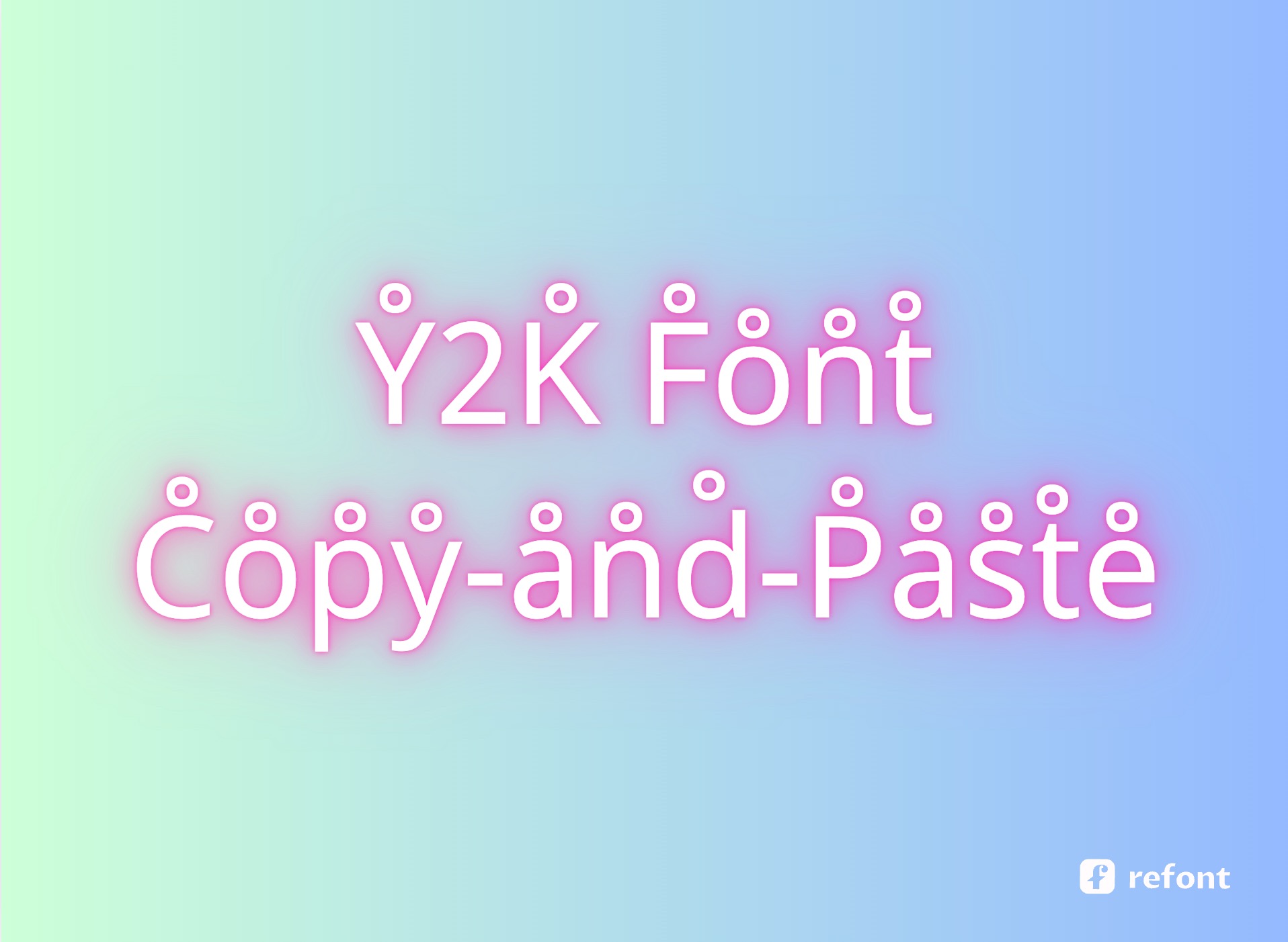
Why the Y2K Font Craze Is Back
The late 1990s promised flying cars, silver jumpsuits, and websites that said “Welcome to the Future!”—all set in bubble letters dripping with chrome gradients. Two decades later, the aesthetic is back, and a good y2k font generatormakes it effortless to recreate that optimism. Gen-Z embraces lo-fi GIFs, Tamagotchi palettes, and hyper-saturated type because it feels freshly nostalgic. And marketers? They love a trend that converts.
Y2K Font Basics
Origins of the Y2K Look
- Techno-optimism: Dot-com IPOs and spaceship interfaces inspired rounded corners and futuristic curves.
- Rave culture: Candy-colored flyers, metallic foils, and bubbly outlines dominated club posters.
- Early GUI design: Mac OS 9 and Windows XP icons featured thick highlights, drop shadows, and glossy bevels.
Key Traits of Y2K Typography
| Trait | Description | Example Uses |
| Bubble & Blobs | Pillow-like glyphs with inner shadows | Toy packaging, pop album art |
| Chrome & Bevels | Faux-metallic highlights | Gaming logos, energy-drink cans |
| Pixel Meets Vector | Mix of bitmap sparks and smooth curves | Web banners, streaming overlays |
| High Saturation | Lime greens, hot pinks, electric blues | Streetwear tags, festival tickets |
A modern y2k font generator reproduces these features in seconds—ideal for non-designers who still want the Y2K punch.
Choosing a Y2K Font Generator
Fancy Fonts Generator — Copy & Paste Heaven
The Fancy Fonts Generator transforms any text into ready-to-paste Y2K characters: think “𝓨𝟐𝓚 ✦ 𝙑𝙞𝙗𝙚𝙨” with stylized Unicode. Because it’s web-based, you can grab your y2k font generator output and drop it into Instagram bios, Twitch chat, or Google Docs—no font file needed.
AI Calligraphy Font Generator — Future Expansion
Craving custom images with Y2K flair? The AI Calligraphy Font tool at AI Calligraphy Font currently offers Brush Script, Gothic, Handwriting, and Cursive; new y2k font generator modes are on the roadmap, letting you download PNGs for further vector magic.
Y2K Font Copy, Paste & Customize
Generate the Text
- Open the y2k font generator (Fancy Fonts Generator).
- Type your headline: “Party Like It’s Y2K!”
- Explore rounded, sparkly, or pixel variants until satisfied. (ℙ𝕒𝕣𝕥𝕪 𝕃𝕚𝕜𝕖 𝕀𝕥’𝕤 𝕐2𝕂!)
- Hit Copy.
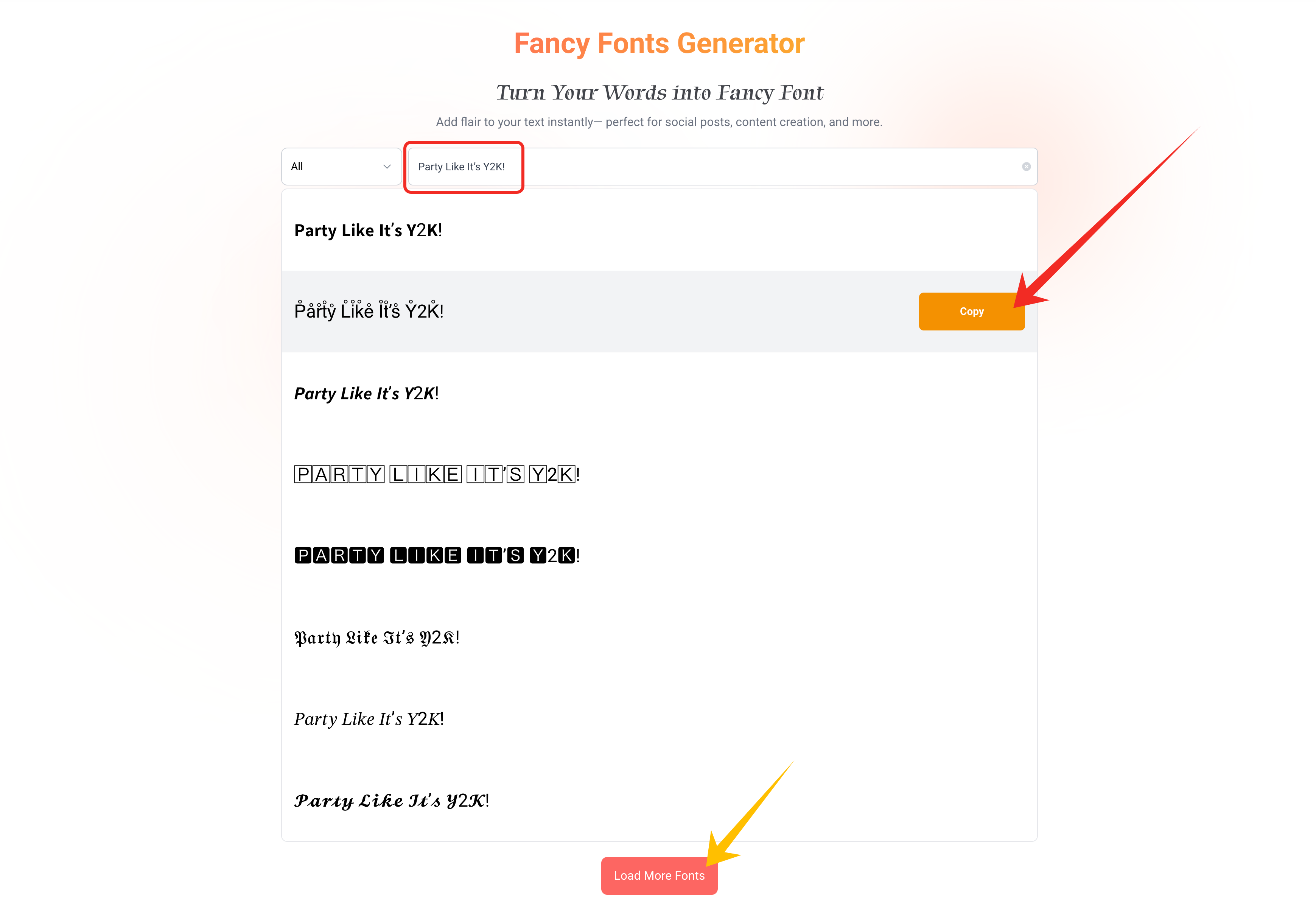
Paste into Canva & Add Effects
- Create a new Canva doc.
- Paste your Unicode Y2K text; Canva renders it instantly.
- Add color: hot-pink gradient (#FF00B4 → #F7A8FF).
- Effect → Neon Glow at 30%.
- Duplicate layer for an offset shadow.
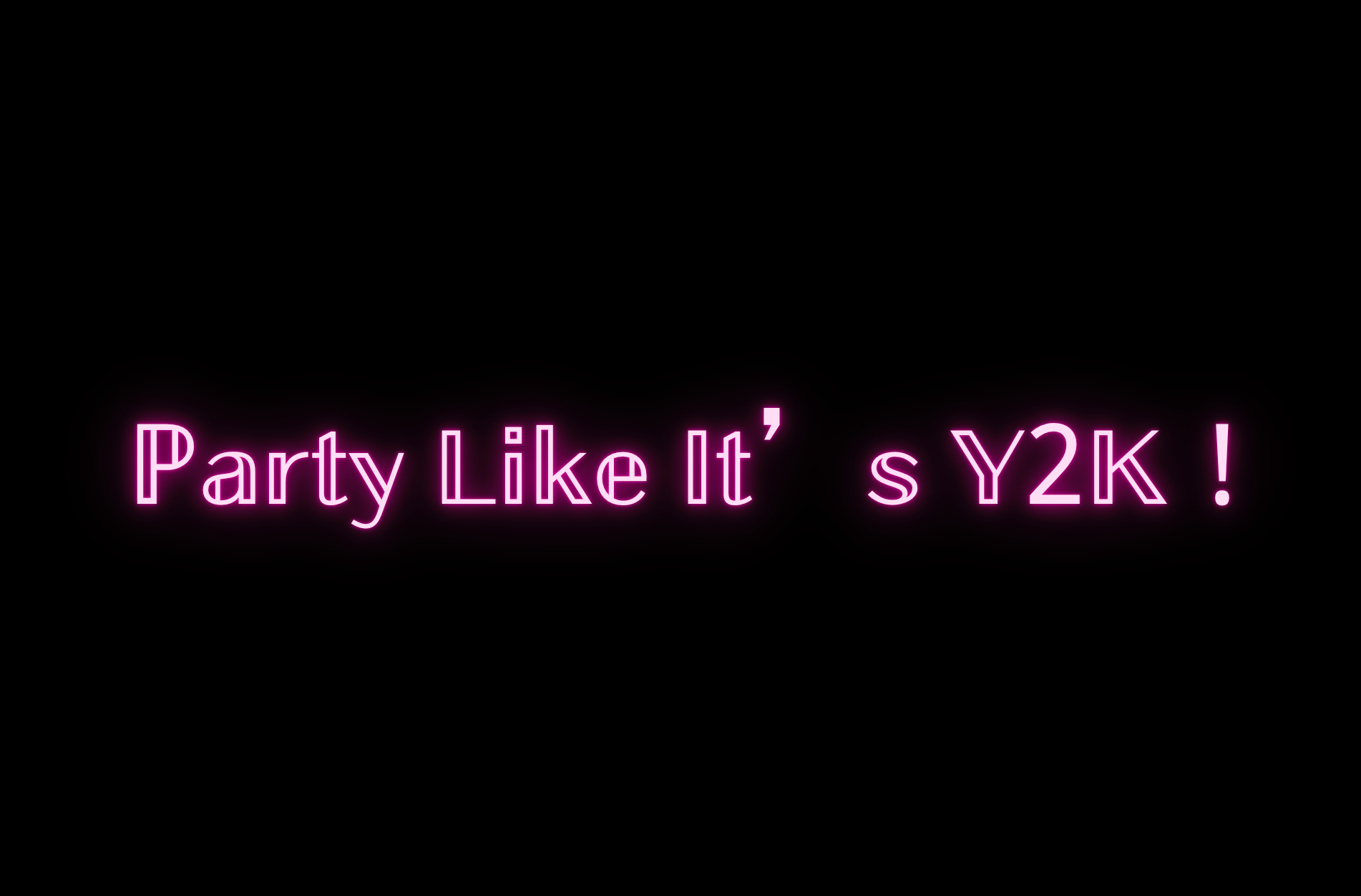
Export & Use Anywhere
- PNG for Instagram Reels.
- PDF for print flyers.
- SVG for easily recoloring in Figma.
Tip: If you crave editable outlines, paste into Illustrator, select Type → Create Outlines, and tweak anchor points.
Design Tips: Colors, Outlines, & Glows
| Tip | Why It Works | Quick How-To |
| High-Contrast Duotones | Captures CRT-monitor glow | Neon pink on deep navy |
| Outline Stroke 3–5 px | Adds retro arcade vibe | Canva → Stroke → 5 px circular |
| Polka Dot Texture | Nods to early web backgrounds | Overlay halftone PNG at 20% opacity |
| Chromatic Aberration | Fake 3D depth | Duplicate text, color cyan & red, offset 2 px |
Y2K Fonts in Real-World Branding
- Music Festivals: Rave-style posters with bubble Y2K titles.
- Beauty Products: Lip-gloss labels embracing sparkly gradients.
- Streetwear: Iron-on patches reading “Y2K 4EVER” in blob type.
- Gaming Streams: Twitch alerts using y2k font generator eye-catchers.
- Snack Packaging: Holographic metallic type pops off the shelf.
FAQ: Barbie Pink, 2000s Nostalgia & More
| Question | Quick Answer |
| Is Barbie’s 2023 logo a Y2K font? | Partially. The bubbly script echoes pre-2000 Barbie boxes but uses modern pastel gradients. |
| Why do Y2K fonts keep trending? | Fashion cycles ≈ 20 years. Gen-Z sees 2000s graphics as fresh nostalgia. A free y2k font generator lowers the barrier to on-trend design. |
| Can I change colors after copying? | Yes—Unicode characters inherit platform styling. In Canva or Word, highlight and recolor. |
| Are Y2K fonts only neon? | No. Try chrome silver, holographic gradients, or Steampunk rust for unexpected twists. |
The Future of Y2K Type
A decade from now, vaporwave may replace bubblechrome—but right now the y2k font generator represents the sweet spot between technicolor nostalgia and instant shareability. Use the Fancy Fonts Generator to copy and paste text, or experiment inside the AI Calligraphy Font ecosystem. And if you need a handwritten wink, combine it with the AI Handwriting Generator. Whatever you create, let your retro spirit shine—because at Refont, we believe tomorrow’s coolest designs begin with yesterday’s boldest fonts. Visit Refont and play like it’s 1999!